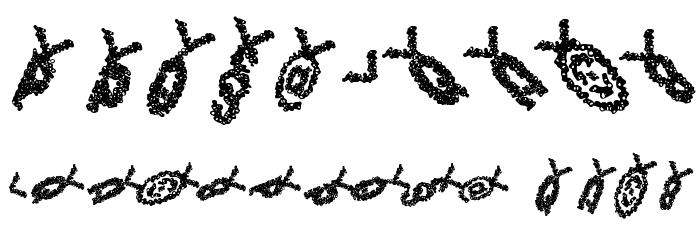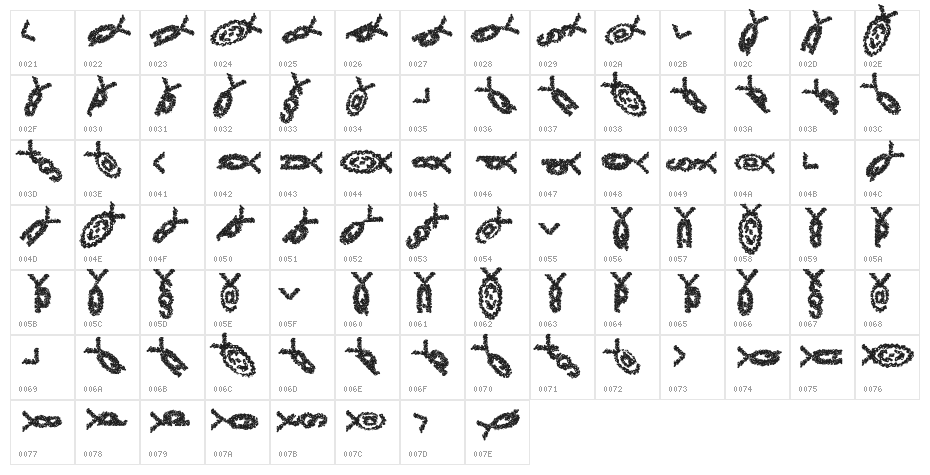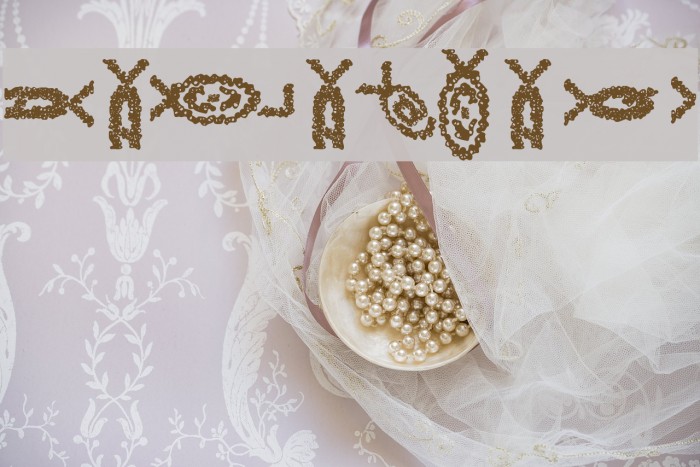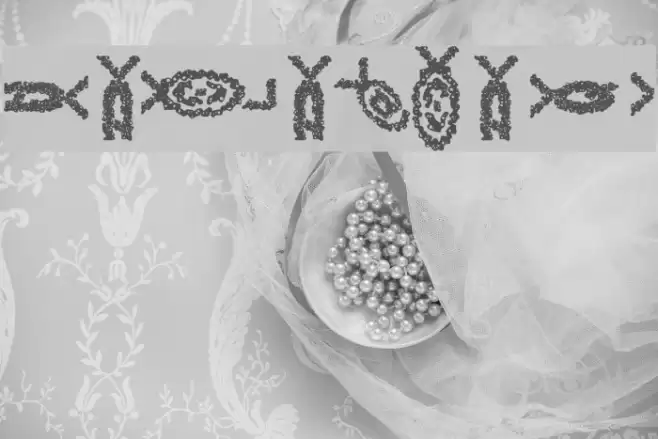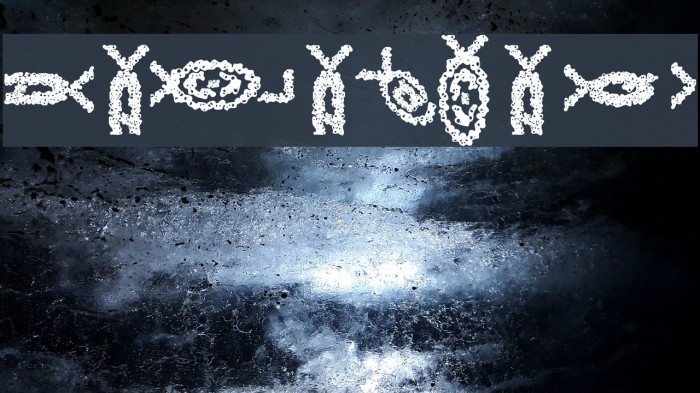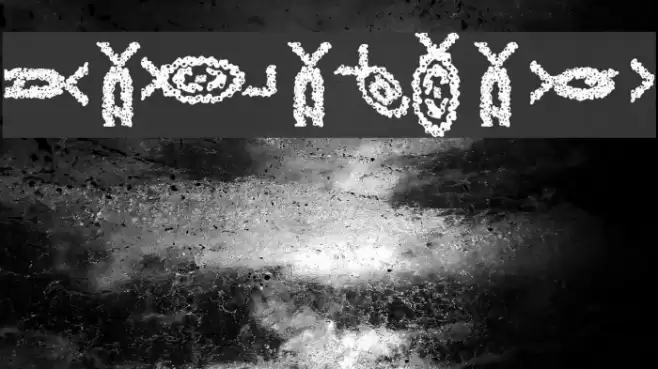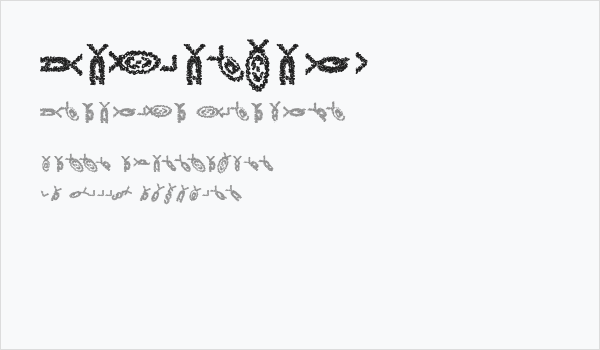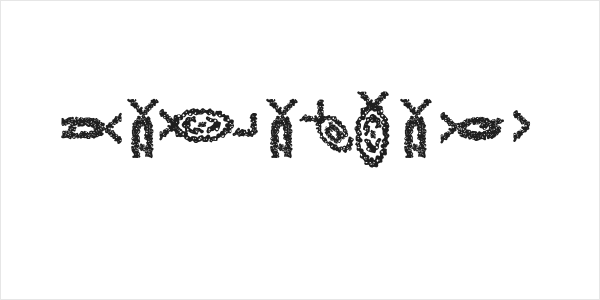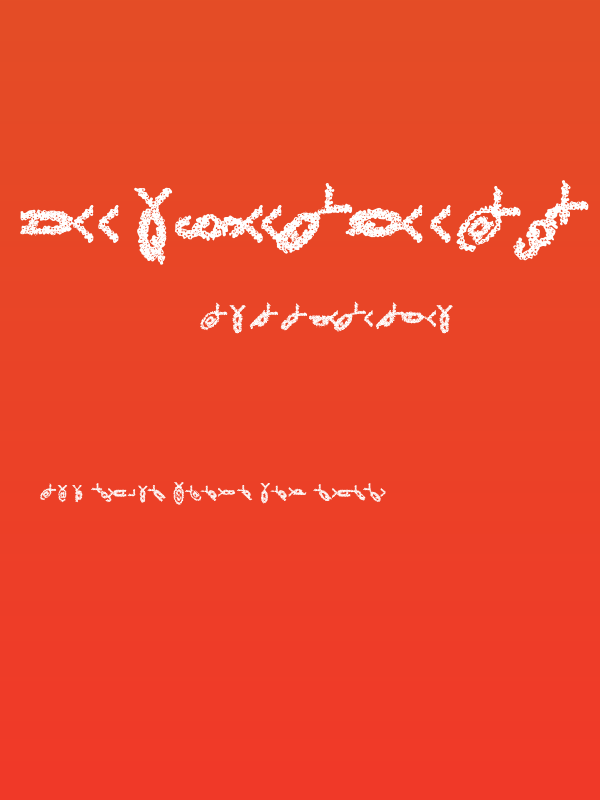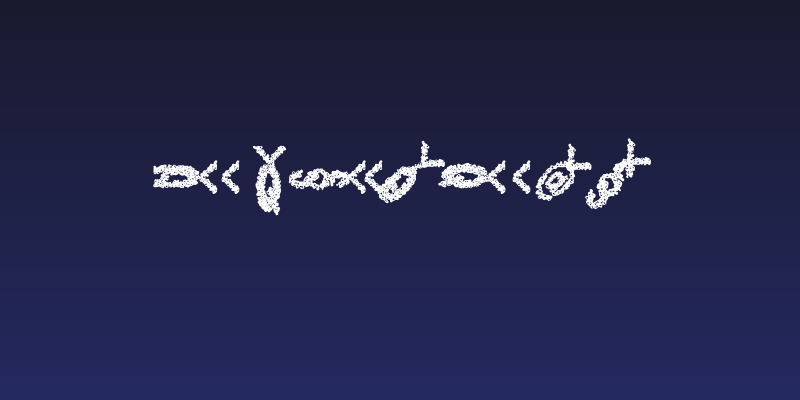
Caviarbats Font
Caviarbats Description
This font is a highly decorative and whimsical design, featuring characters that resemble intricate patterns and shapes rather than traditional letterforms. Each character is composed of a series of interconnected loops and curves, giving it a playful and artistic appearance. The design is reminiscent of abstract art, with a focus on visual complexity and creativity. The characters are not easily recognizable as standard letters or numbers, making this font more suitable for artistic or ornamental purposes rather than practical text display. Its unique style makes it a standout choice for projects that require a touch of artistic flair and creativity.
| Use Case | Artistic designs, decorative elements, abstract compositions. |
| Proposed Projects | Ideal for artistic projects, decorative designs, or abstract art pieces where traditional readability is not a priority. |